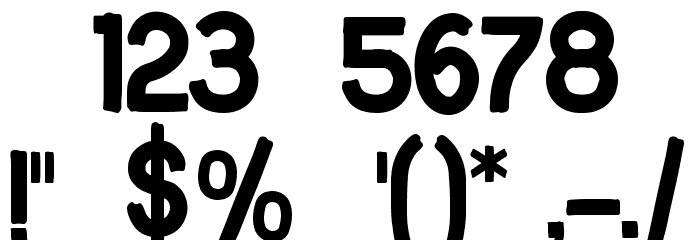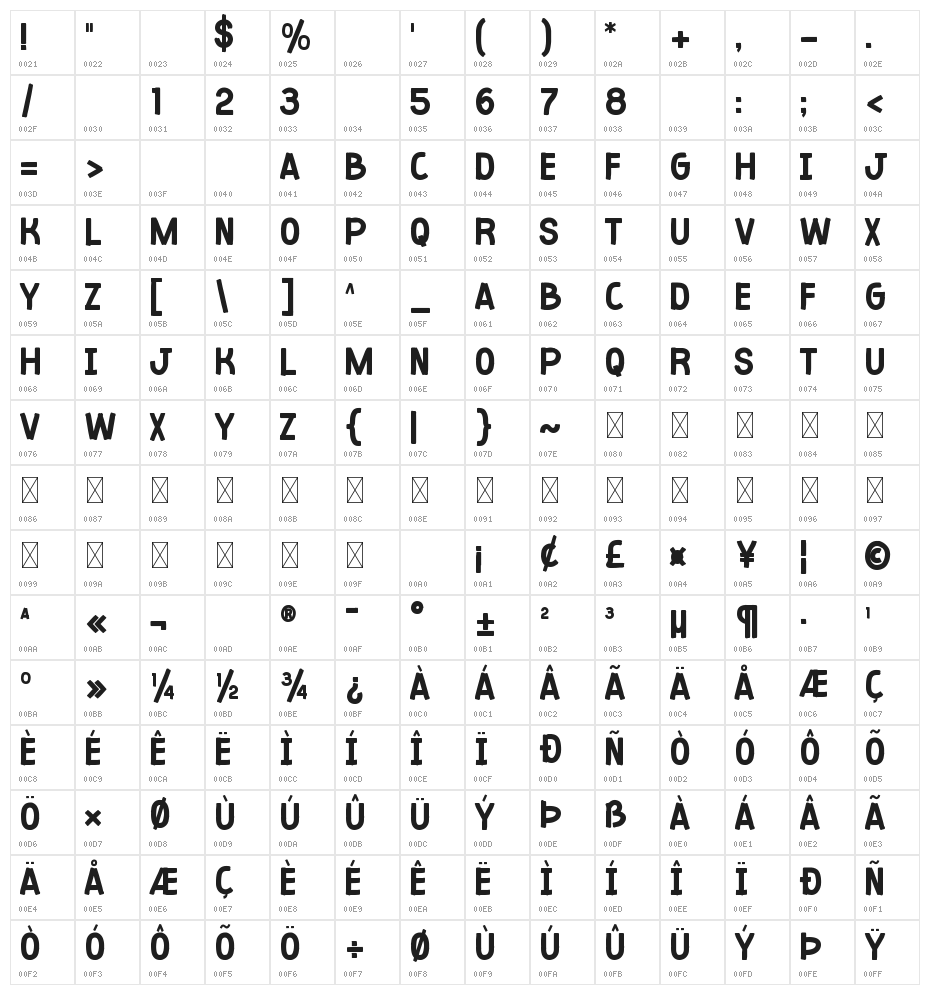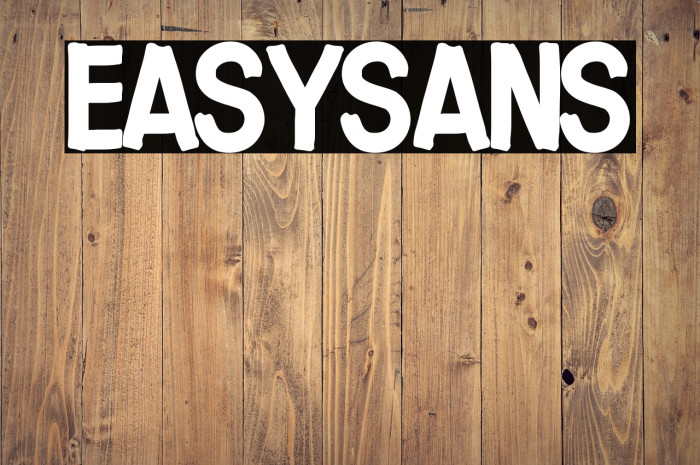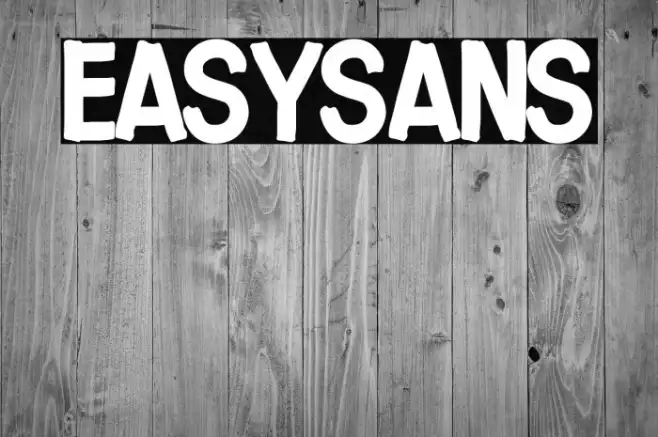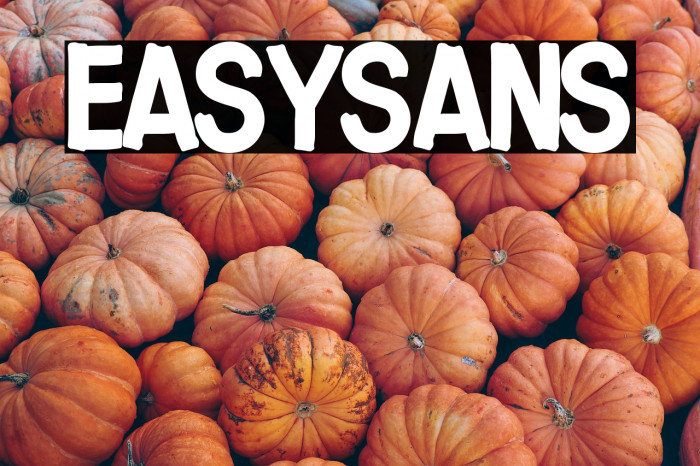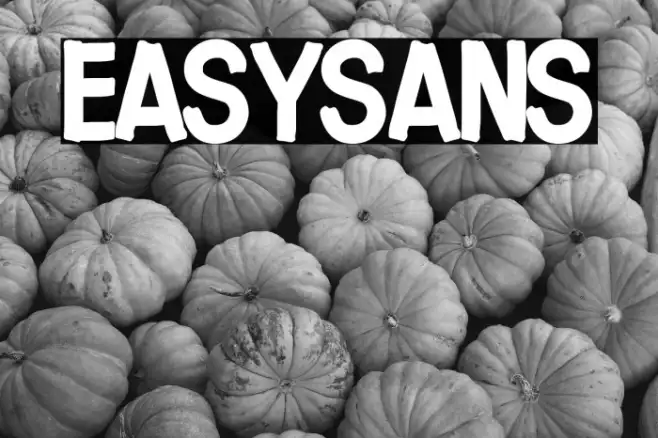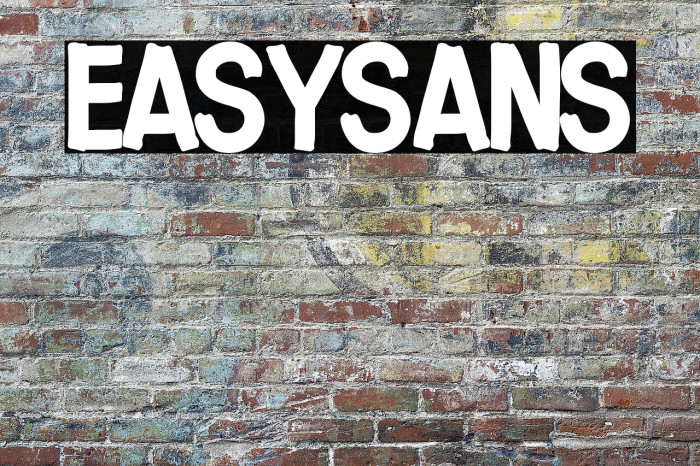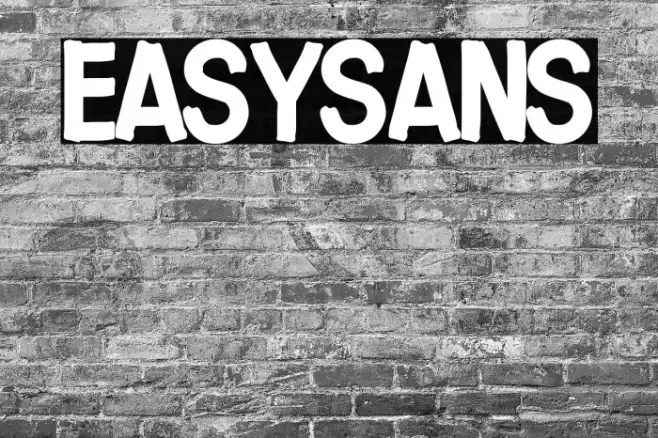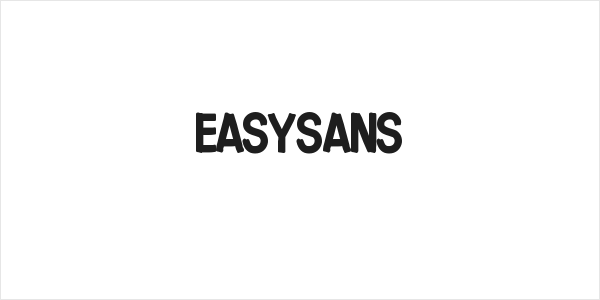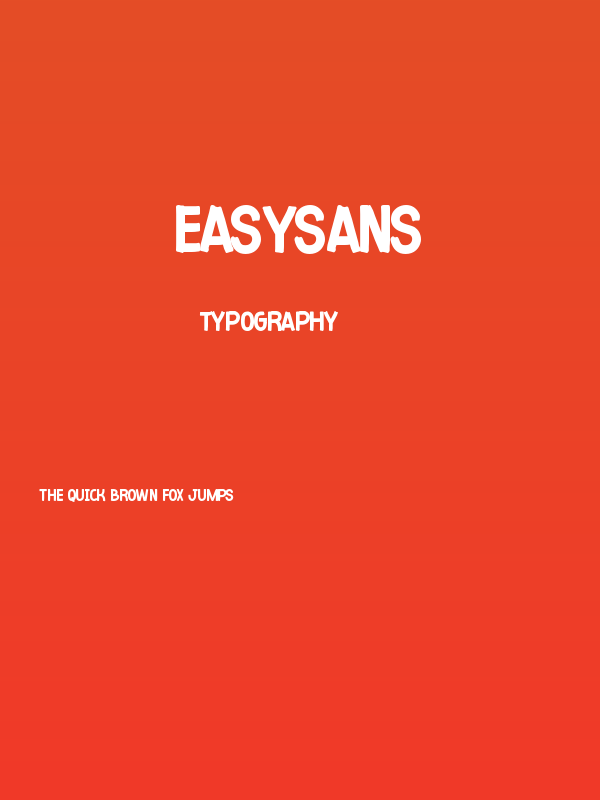
Easysans Font
Easysans Description
This font features a bold and playful style with rounded edges and a slightly irregular form, giving it a hand-drawn appearance. The characters are thick and substantial, making them highly visible and impactful. The uppercase and lowercase letters maintain a consistent weight, contributing to a cohesive look. The numbers and special characters follow the same design principles, ensuring uniformity across all glyphs. Its informal and friendly aesthetic makes it suitable for creative and casual applications.
| Overall Style | Playful, Informal |
| Proposed Projects | Ideal for children's books, playful branding, posters, and informal invitations. |